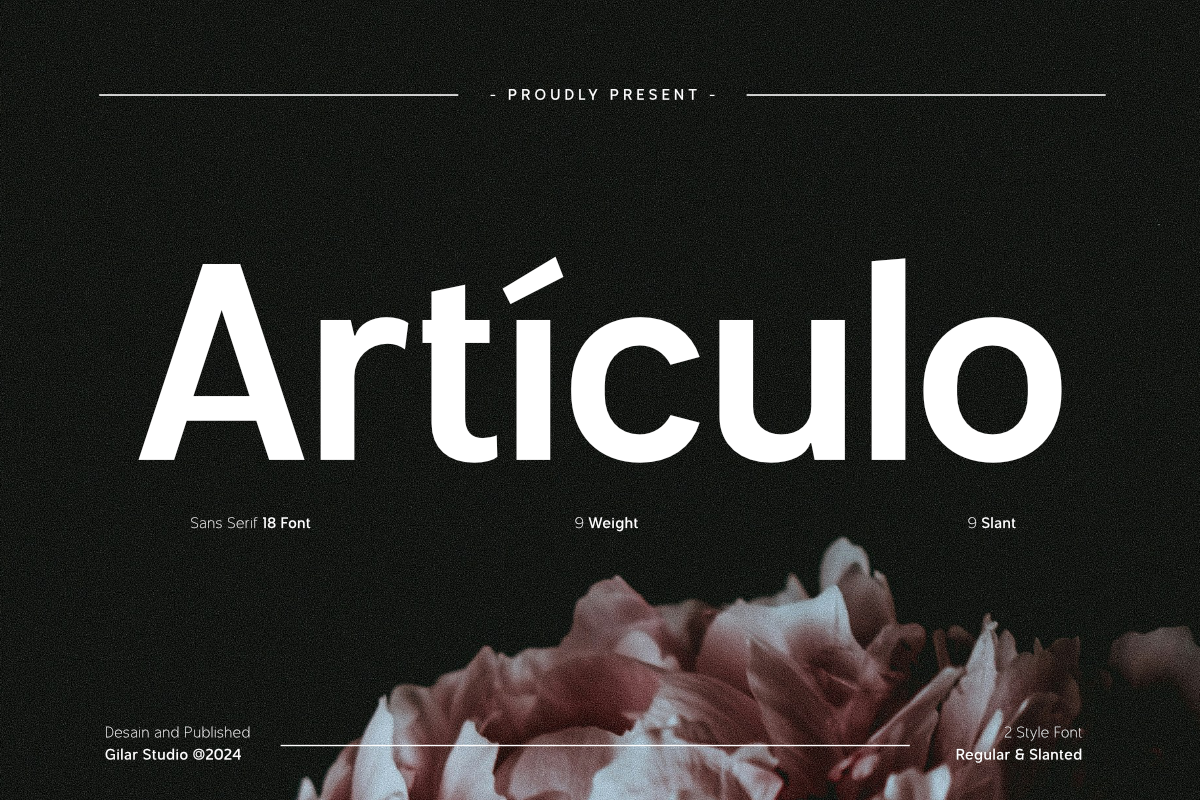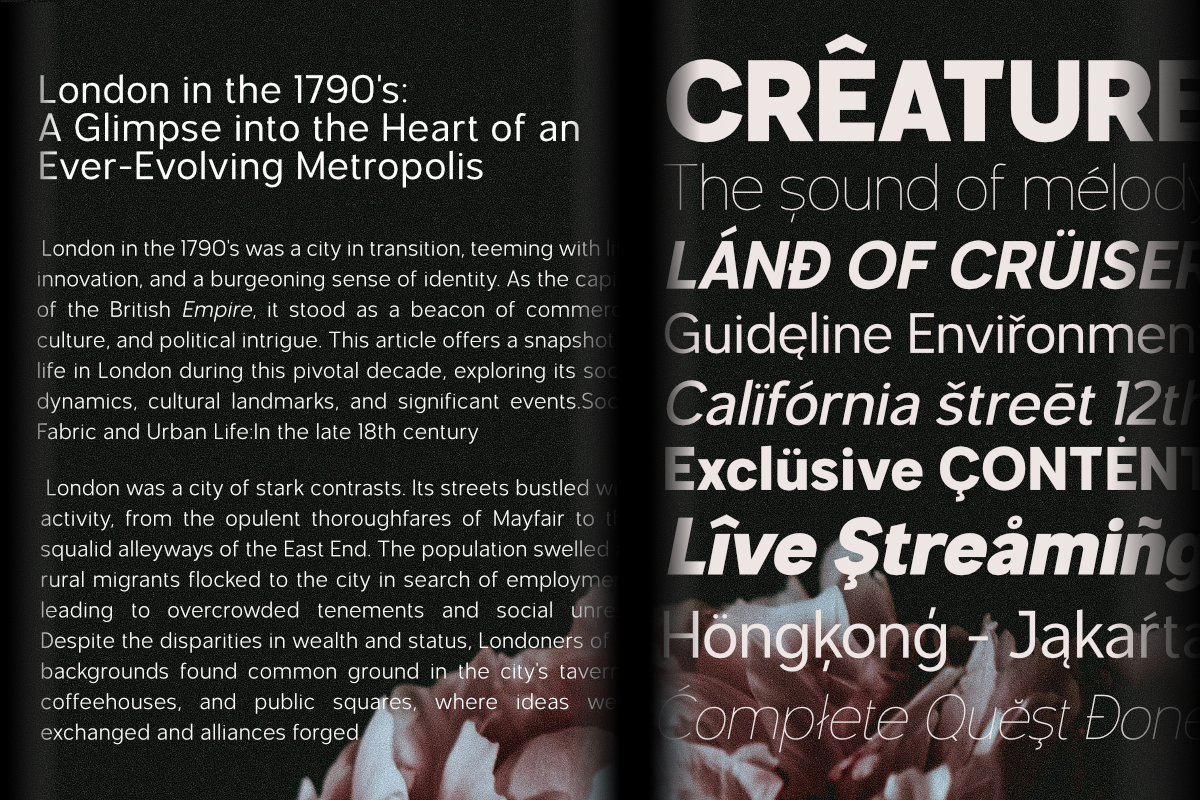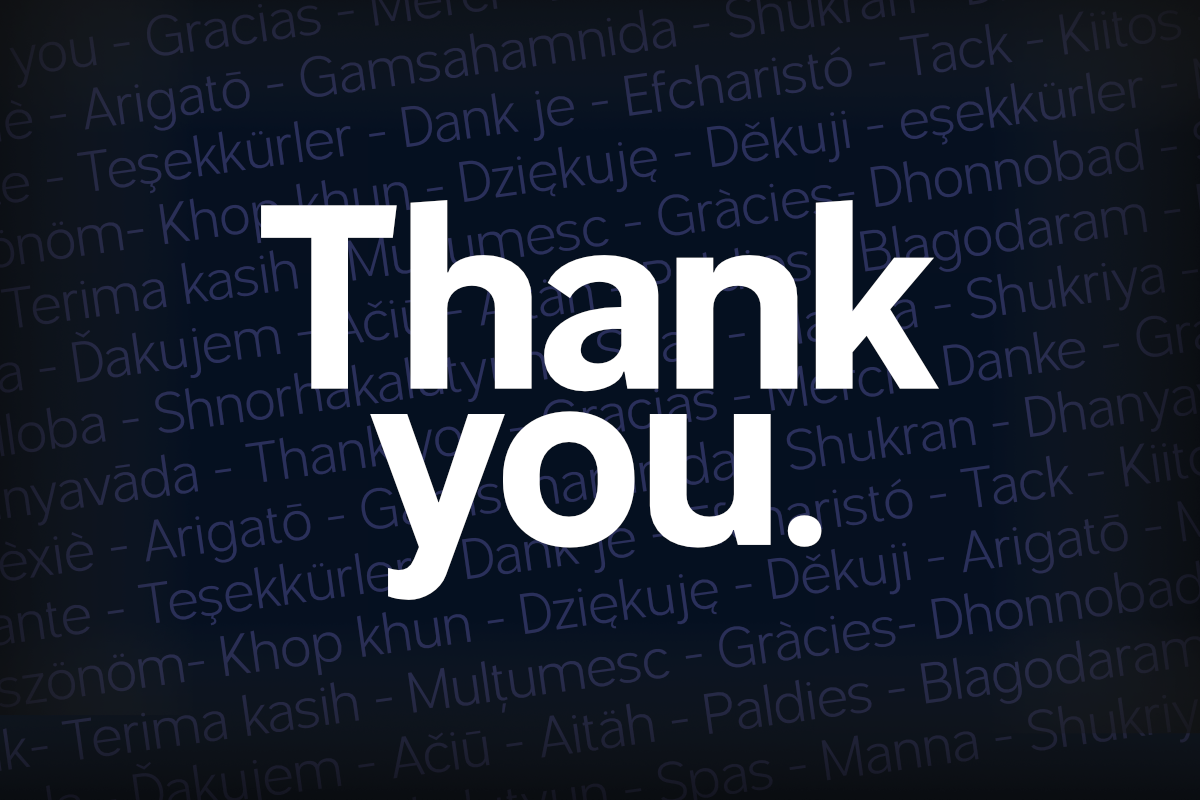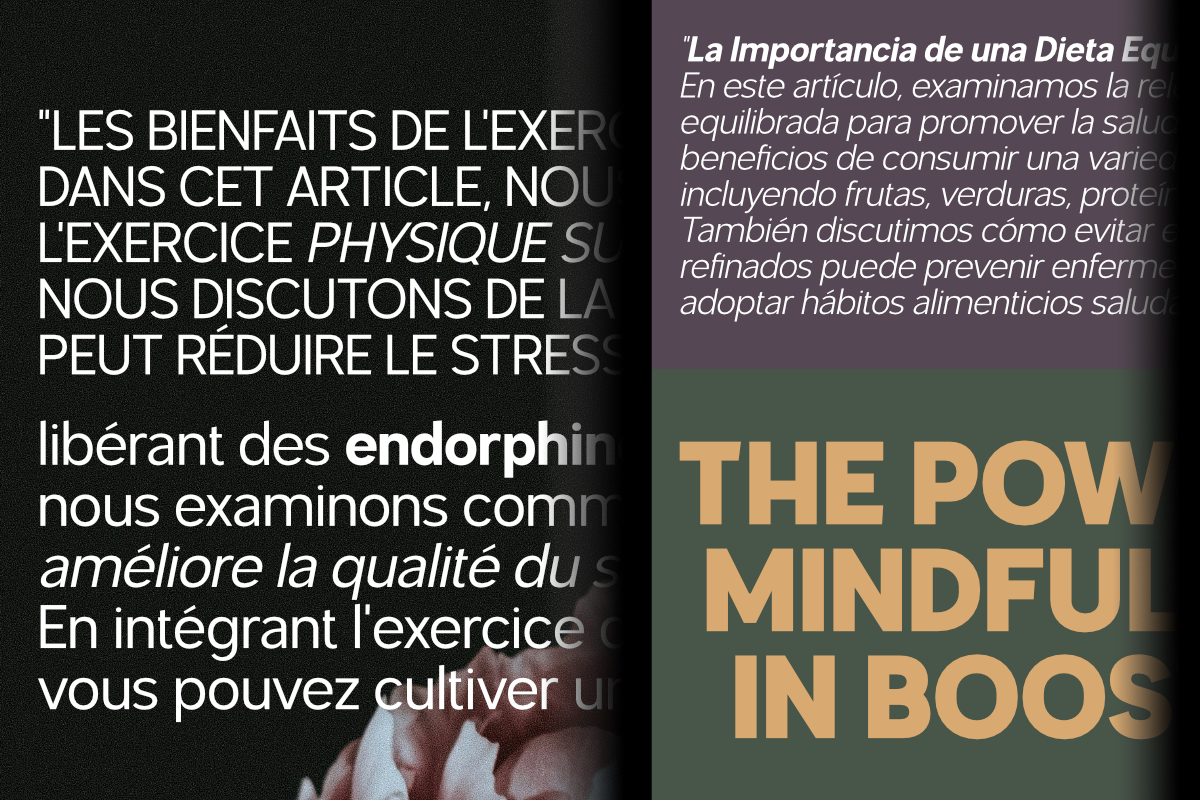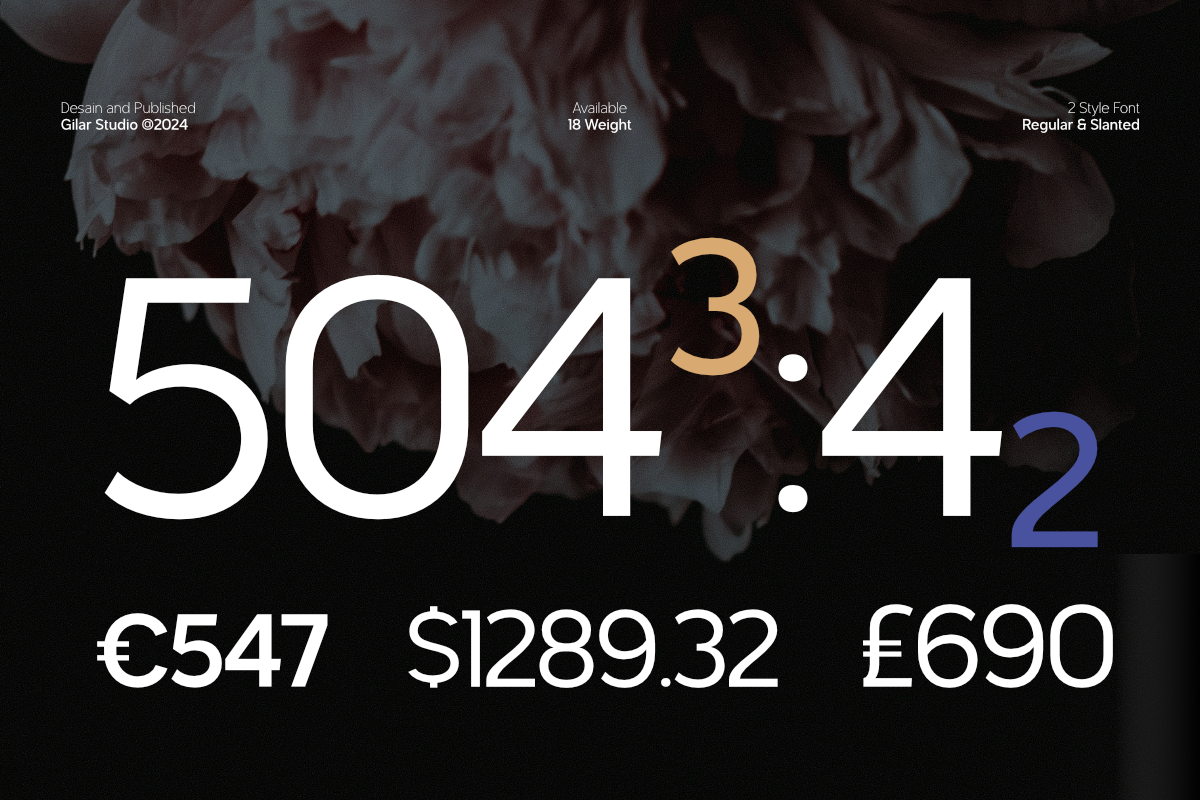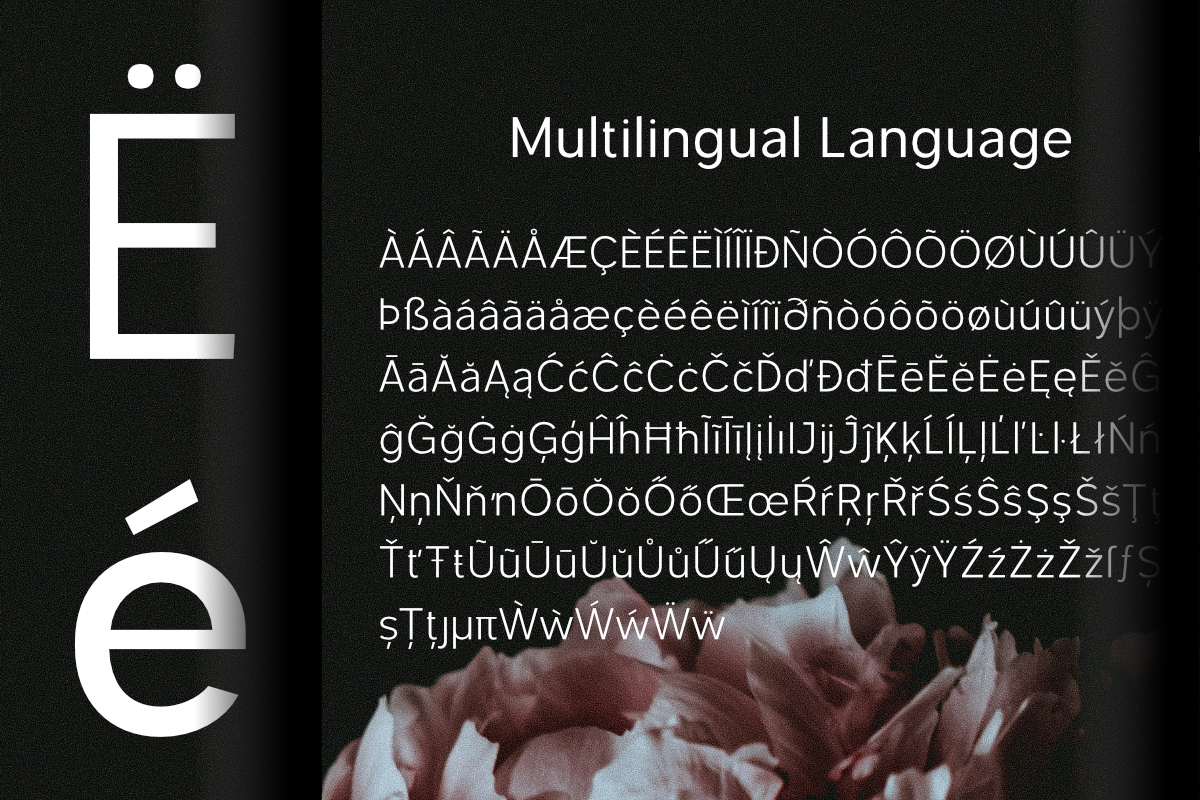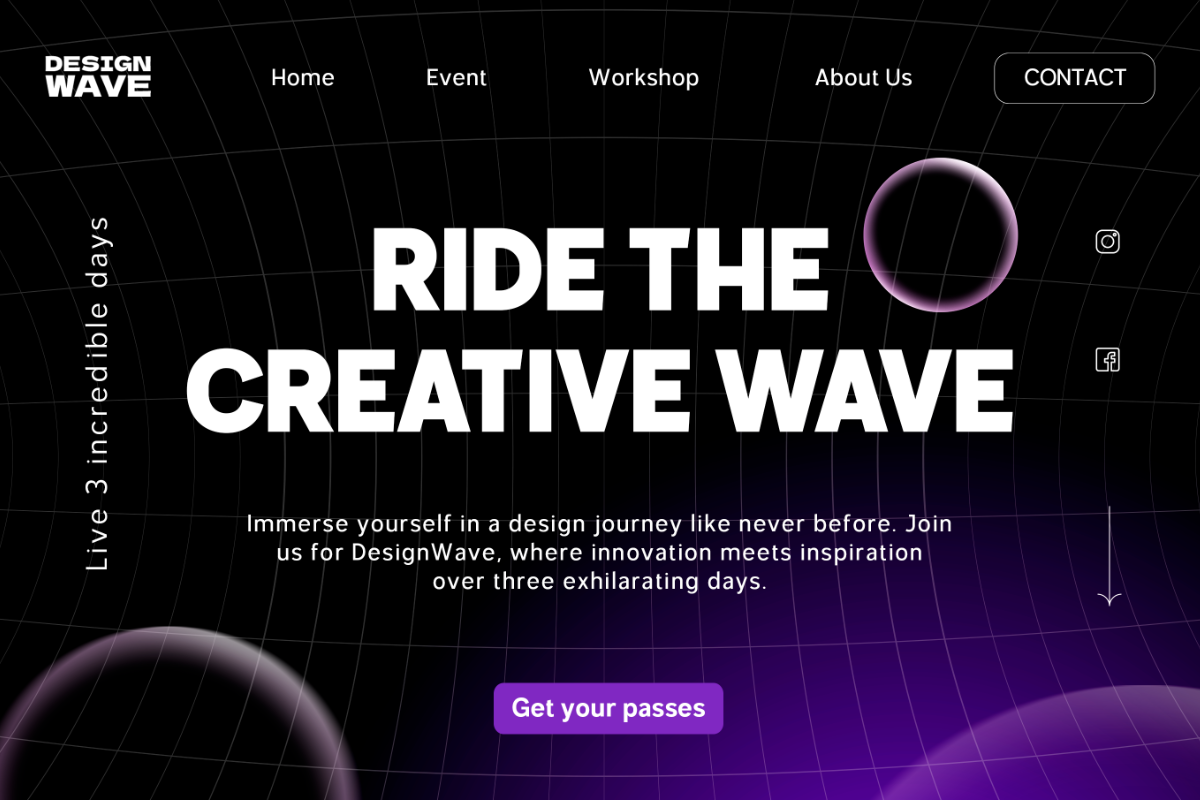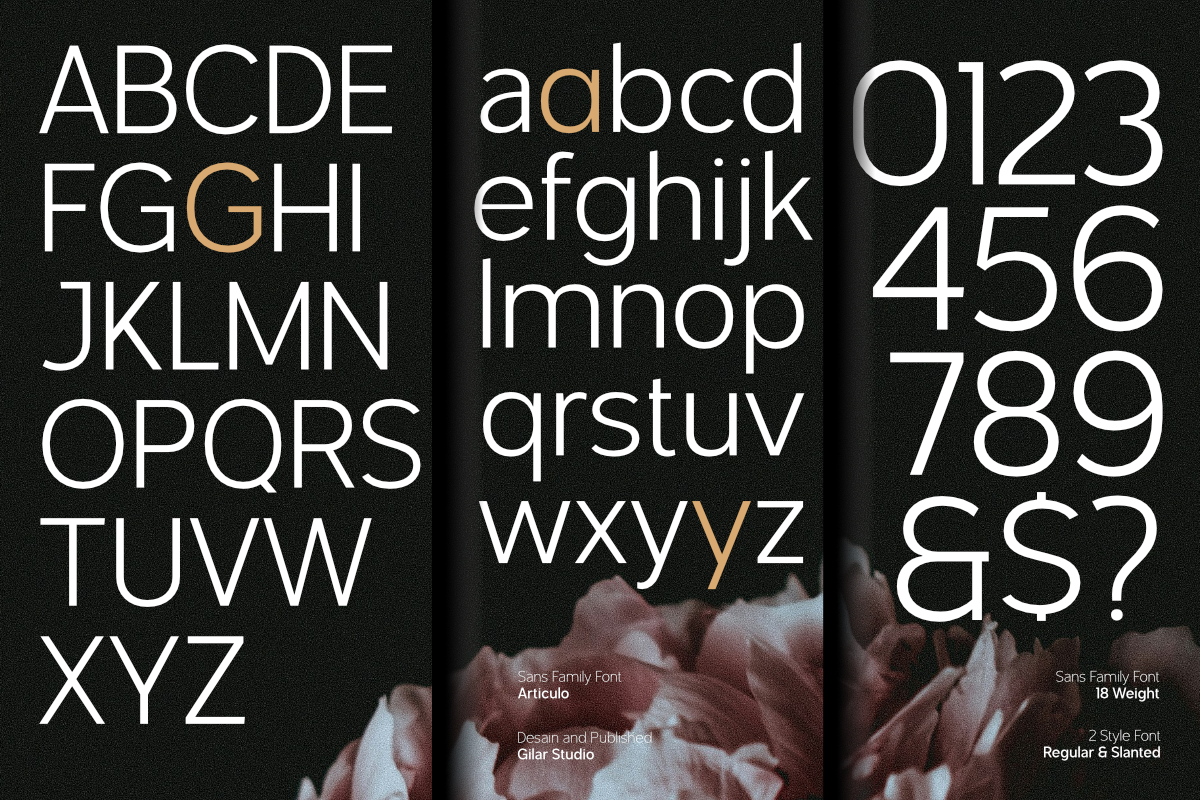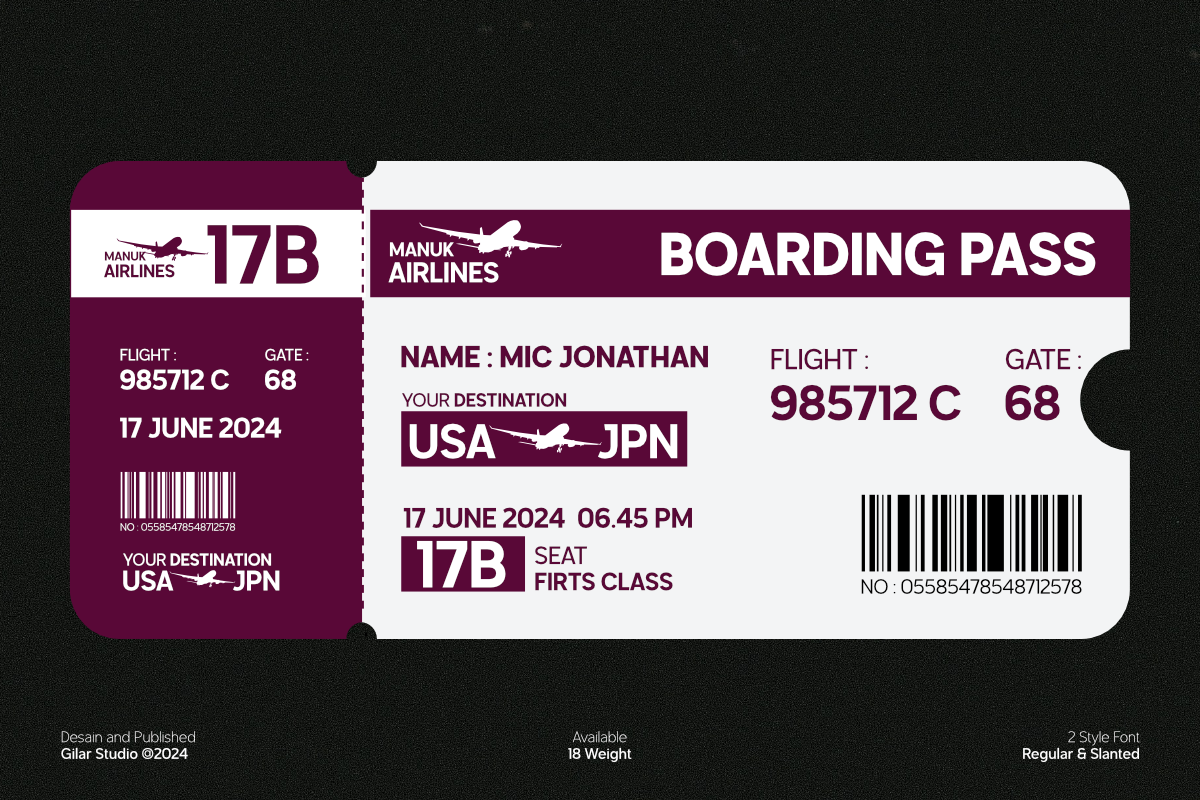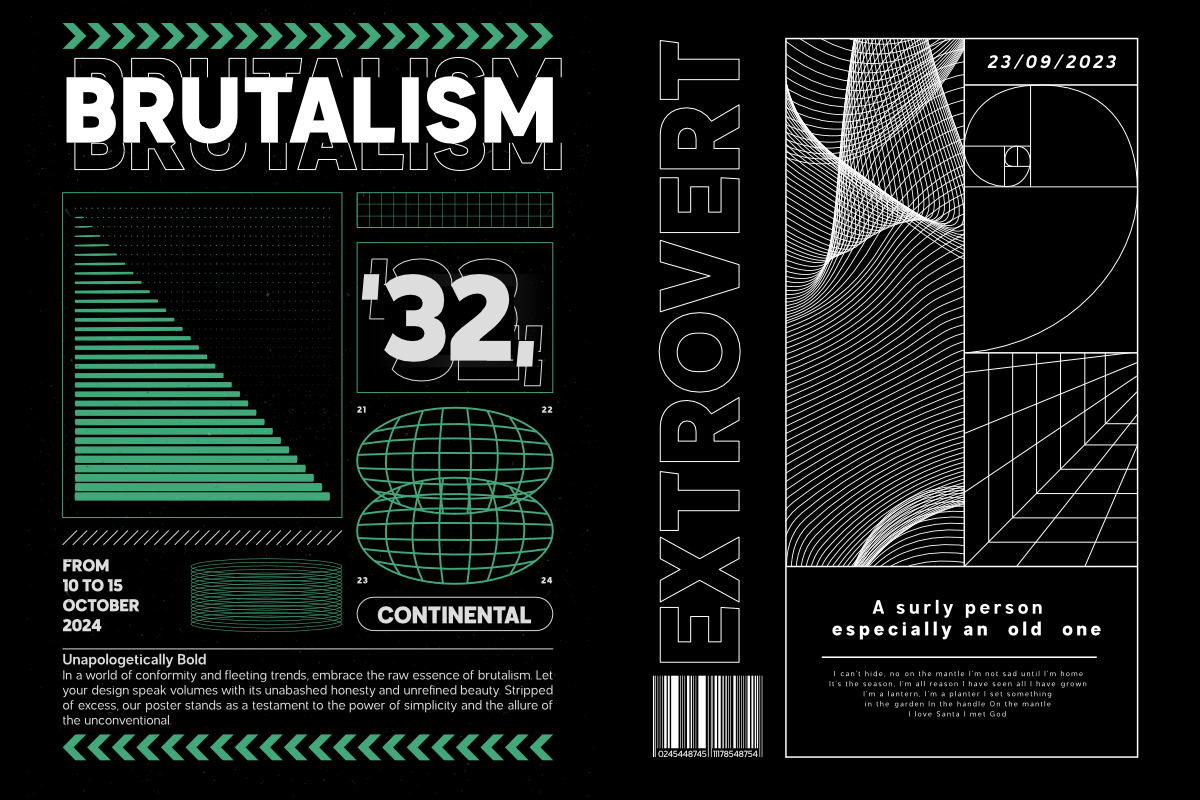
Articulo - Sans Font Family
Articulo is a refined geometric sans font family,
Infusing elements of both classic and humanistic styles,Articulo strikes a harmonious balance between geometric precision and timeless elegance. With 18 styles ranging from thin to black, each accompanied by matching obliques and comprehensive Latin character support, Articulo offers designers a versatile toolkit to bring their creative visions to life.
Suited for a wide array of design applications, Articulo excels in display, large-size settings, and headers, while also seamlessly integrating into various layout designs, logos, websites, brand identities, and product packaging. Its adaptability extends to both text and web font usage, making it an indispensable asset for broad graphic design projects and creative endeavors. With Articulo, designers can confidently explore the intersection of modernity and tradition, leveraging its geometric sophistication to convey a sense of contemporary refinement across diverse design contexts.